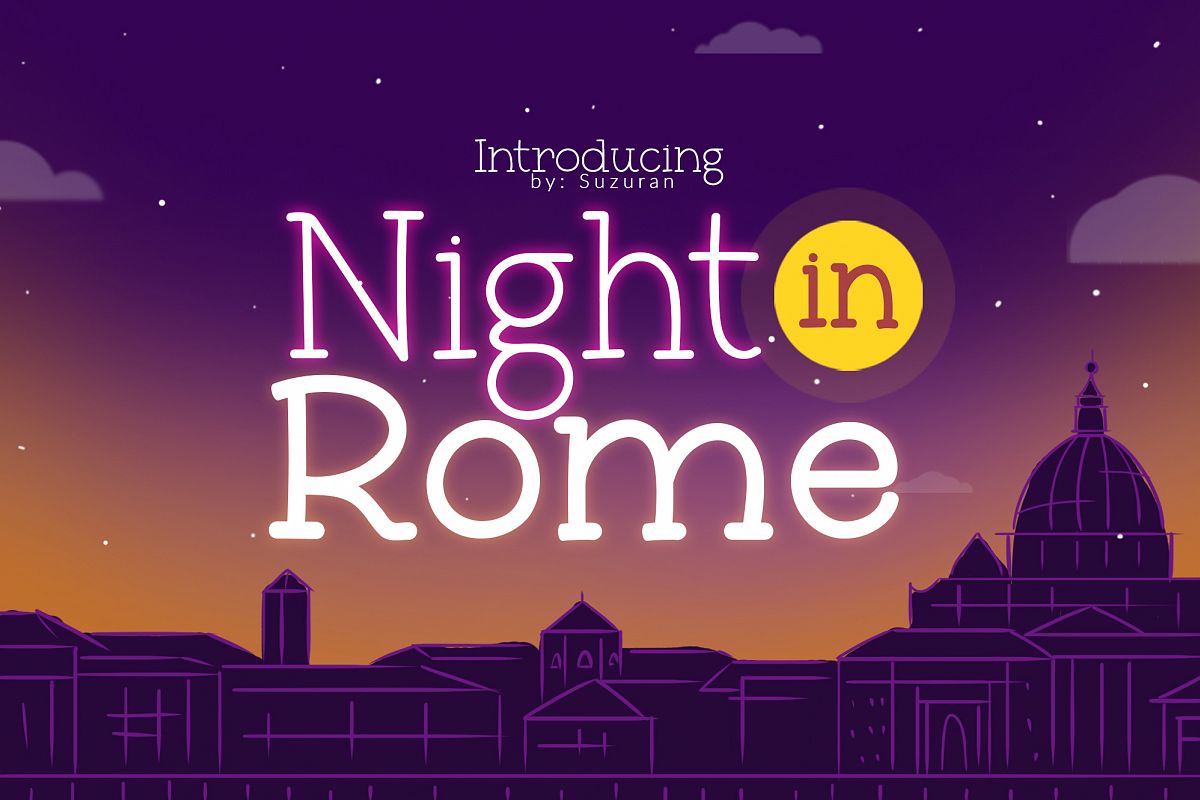
Night in Rome
Night in Rome, a font t with cheerful theme for your fun project. Night in Rome Display font has 2 different styles, regular & bold. Night in Rome font suitable for logo, branding, greeting card, branding, poster and any design that you create.